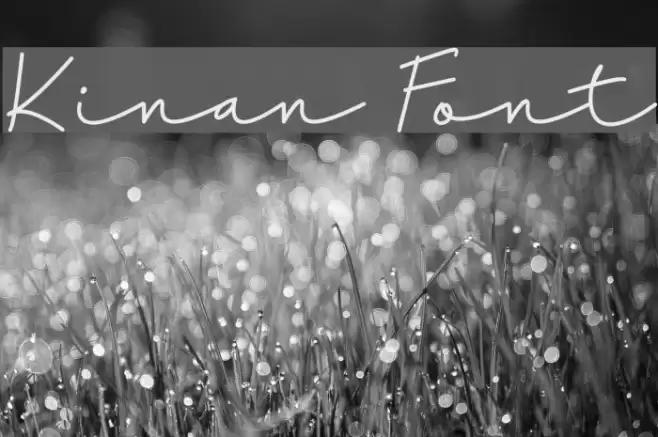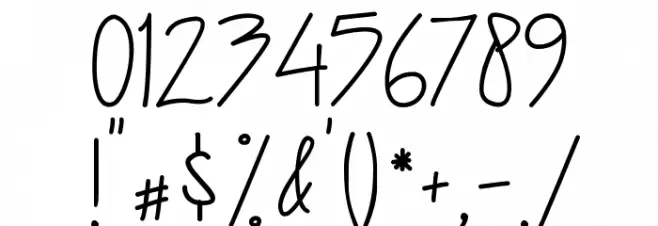
Kinan Font
Kinan Description
This font features a fluid, handwritten style that exudes a sense of elegance and personal touch. The uppercase letters are slightly slanted, with smooth curves and a consistent stroke width that gives a cohesive appearance. The lowercase letters maintain a similar style, with a natural flow that mimics cursive handwriting. Numbers and special characters are designed to match the overall aesthetic, ensuring a uniform look across all text. The font's design is both modern and timeless, making it suitable for a variety of applications where a personal or artistic touch is desired.
A fluid, handwritten-style font with elegant curves and consistent strokes from Uncategorized fonts.
- Proposed Projects: Ideal for wedding invitations, personal branding, greeting cards, and artistic projects.
- Use Case: Logos, Invitations, Artistic projects